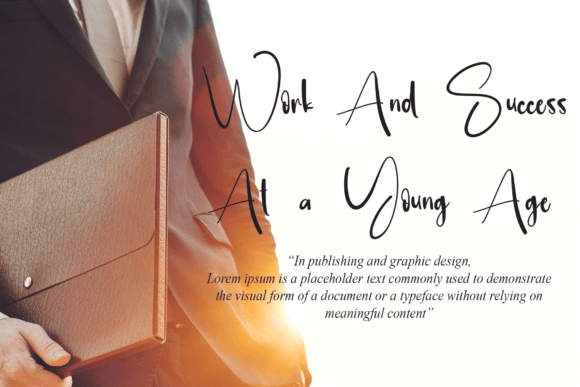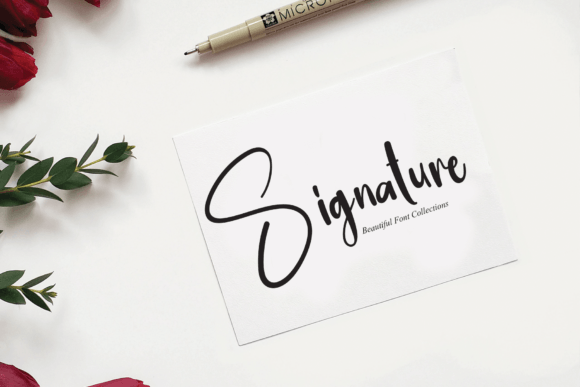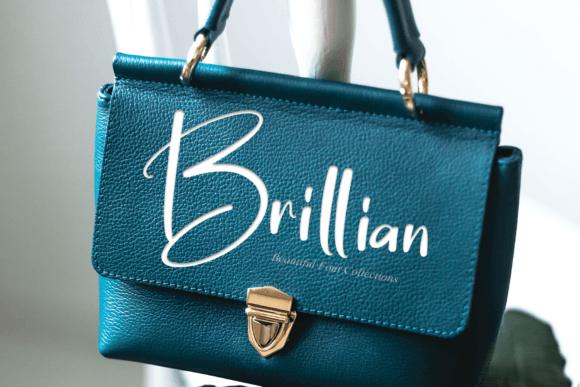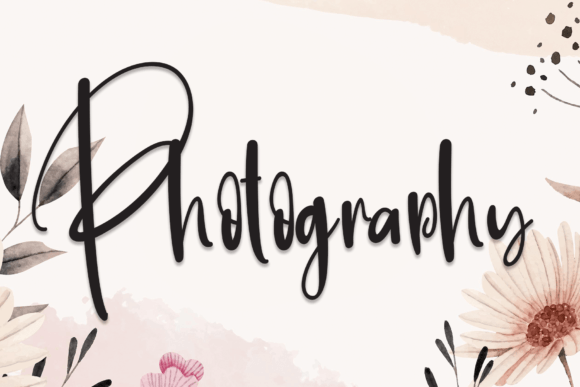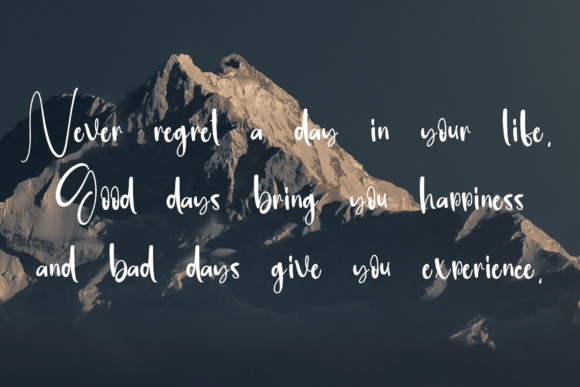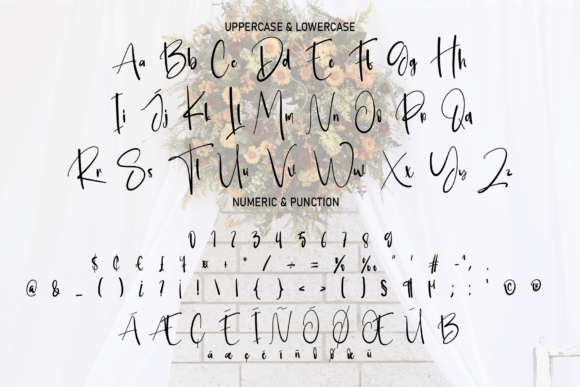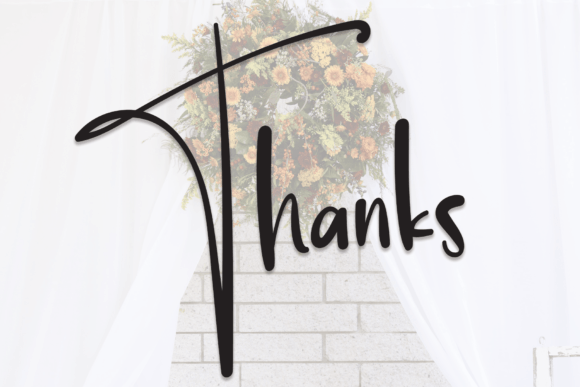
Backdrop Font
About Backdrop Font
Backdrop is a straightforward and uniquely crafted handwritten font designed to infuse an extraordinary feel into your designs. Its simplicity adds a touch of elegance, making it a versatile choice for a wide range of applications. Whether you’re working on wall displays, wedding invitations, social media posts, logos, advertisements, product packaging, product designs, labels, photography, watermarks, invitations, stationery, and more, Backdrop is tailored to elevate and make your designs outstanding.
The distinctive quality of Backdrop lies in its simplicity, allowing it to seamlessly integrate into various design contexts while maintaining a sense of uniqueness. Picture incorporating Backdrop into your wall displays, where its clean and straightforward style enhances visual appeal without overpowering the overall design.
For wedding invitations and social media posts, Backdrop brings a touch of sophistication while retaining a friendly and approachable demeanor. Its handwritten aesthetic adds a personal and authentic feel, making your content stand out with a human touch.
In branding, logos, and product packaging, Backdrop becomes a versatile tool, offering a balance between simplicity and distinction. Its adaptability ensures that your brand identity remains cohesive across different touchpoints, from labels to advertisements.
Whether applied to photography, watermarks, or stationery, Backdrop provides a clean and extraordinary touch that complements various visual elements. Its simplicity becomes a strength, allowing your designs to shine without unnecessary complexity.
In conclusion, Backdrop is more than just a font; it’s a design asset crafted to enhance your creations with an extraordinary feel. Elevate your designs across diverse applications, and let Backdrop be the key to making your projects outstanding and memorable.